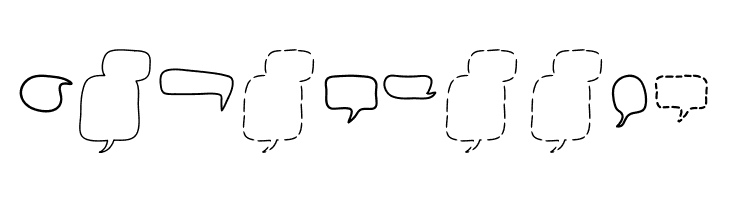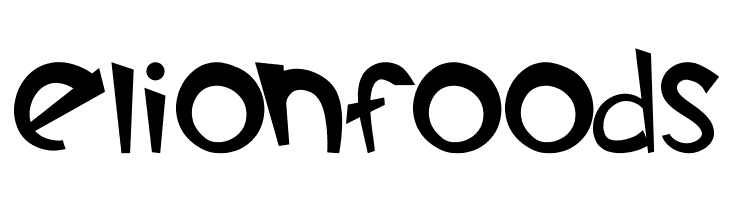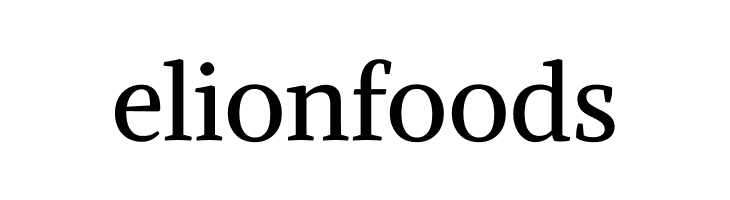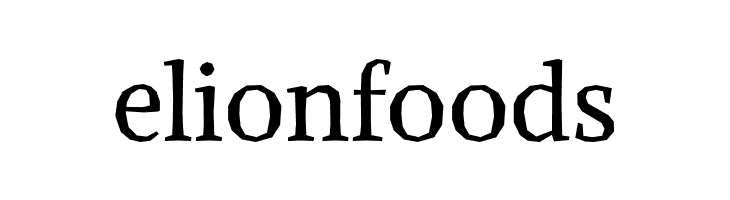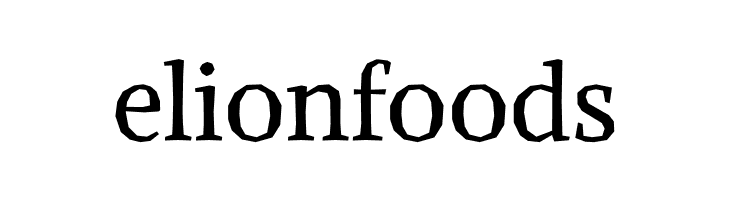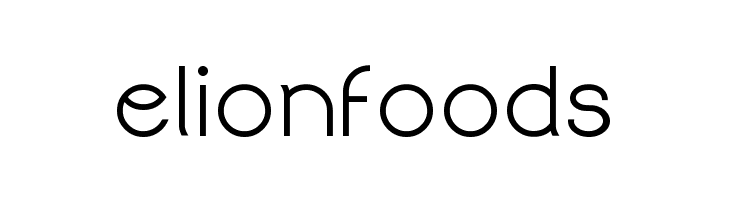
A modern, geometric sans-serif font with a clean and uniform appearance.
A modern, geometric sans-serif font with clean lines and balanced spacing.
An elegant, ornate script font with intricate flourishes and calligraphic style.
A classic serif font with a modern touch, offering elegance and readability.
A serif typeface with angular, sharp serifs and a strong, structured appearance.
A bold, angular serif font with a modern twist.
A classic serif font with elegant strokes and balanced readability.
A serif font with angular design and sharp serifs, offering a modern yet classic look.
A playful, cartoon-like font with bold, irregular strokes and dynamic shapes.
Hand-drawn comic speech and thought bubble dingbats.